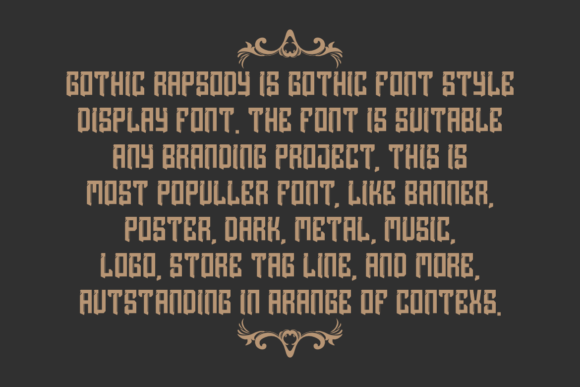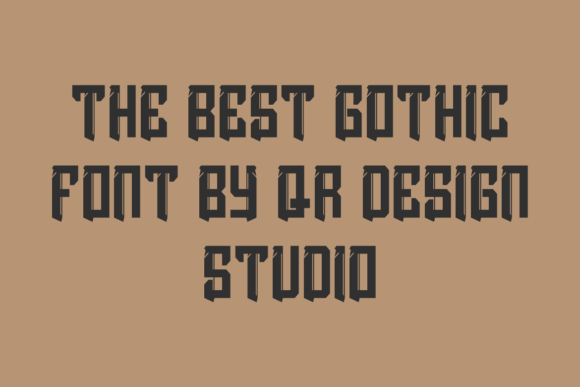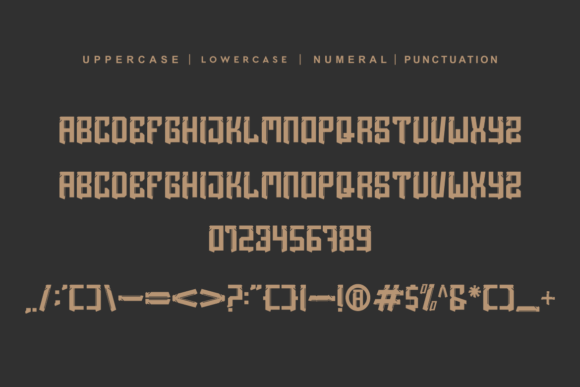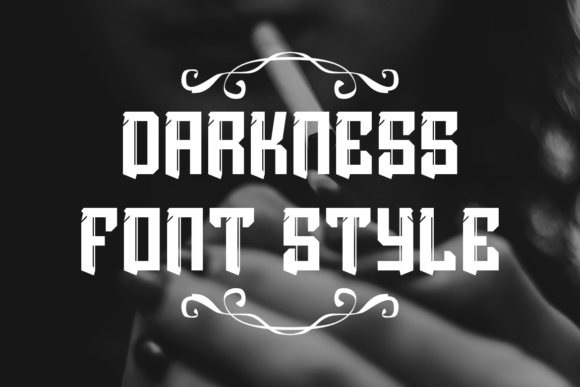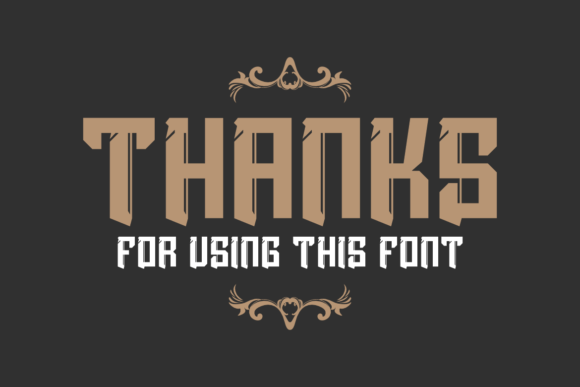
Introduction to Gothic Rapsody Font
As designers, we’ve all been there – staring at a blank canvas, trying to conjure up the perfect font to bring our creative vision to life. The search for the perfect font can be a daunting task, especially when working on a project that requires a bold and edgy aesthetic. That’s where the Gothic Rapsody Font comes in – a high-quality display font that’s perfect for any branding project that needs a touch of darkness and sophistication.
With its authentic and bold design, the Gothic Rapsody Font is an excellent resource for designers looking to add some grit to their creative project. Whether you’re working on a poster, a logo, or a music-related design, this font is sure to make a statement. And the best part? It’s available for free download, making it a valuable asset for any designer looking to add some high-quality design elements to their work.
Gothic Rapsody Font
- Unique Gothic-inspired design with a touch of elegance, making it perfect for creative projects that require a sophisticated look.
- Perfect for use in various design projects, including graphic design, typography, and digital art, where a Gothic-inspired look is desired.
Honest Review: Gothic Rapsody Font
As a designer, I’m always on the lookout for high-quality design resources to elevate my creative projects. Recently, I stumbled upon the Gothic Rapsody Font, and I’m excited to share my honest review.
Here’s what I like about the Gothic Rapsody Font:
- ✨ Unique and bold design aesthetic that’s perfect for dark, edgy projects
- ✨ Clear and readable text, even at smaller font sizes
- ⚠️ Limited character set, which may not be ideal for longer texts
Overall, I’m impressed with the Gothic Rapsody Font’s potential for adding a touch of darkness and elegance to my designs. While it may have some limitations, its unique design and free download option make it a valuable resource for designers working on creative projects.
The Gothic Rapsody Font is ideal for use in creative projects that require a bold, eye-catching font. Some common use cases include: creating a logo for a metal band, designing a horror-themed poster, or adding a touch of elegance to a wedding invitation.